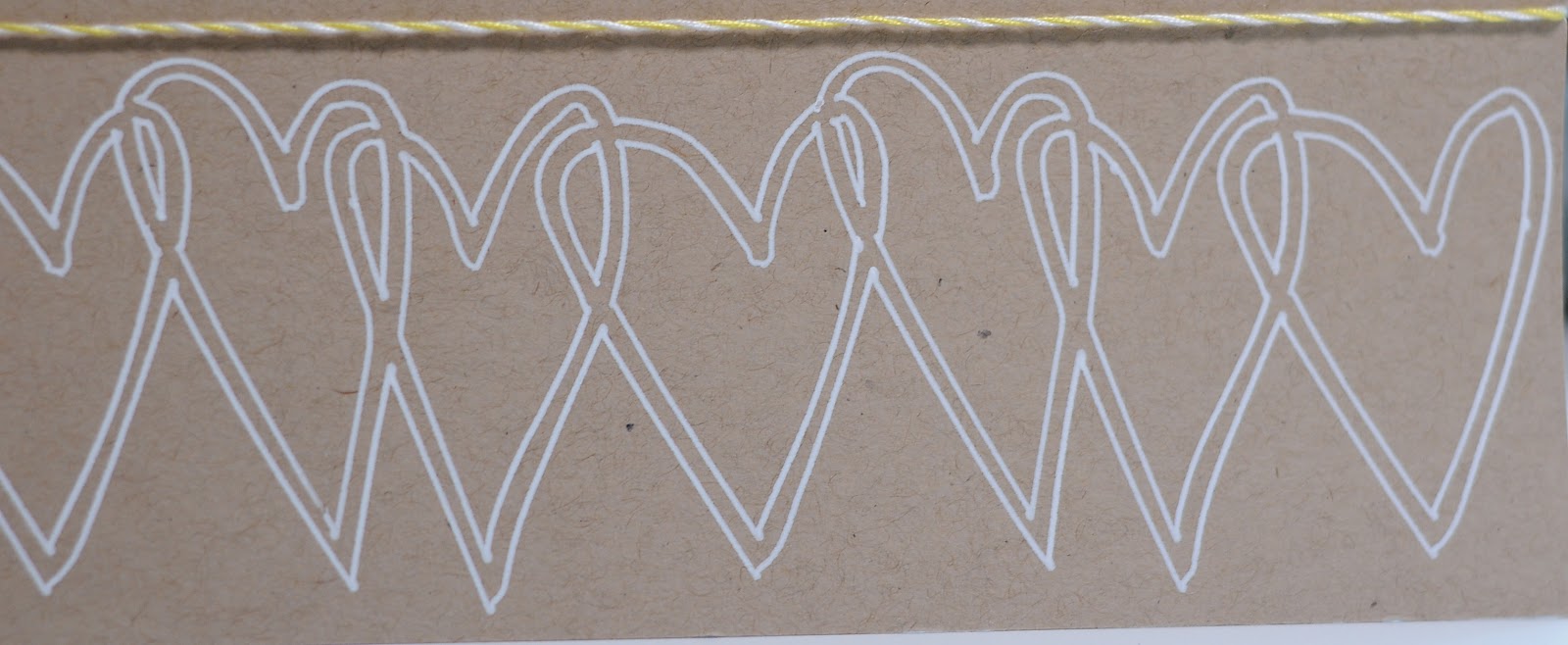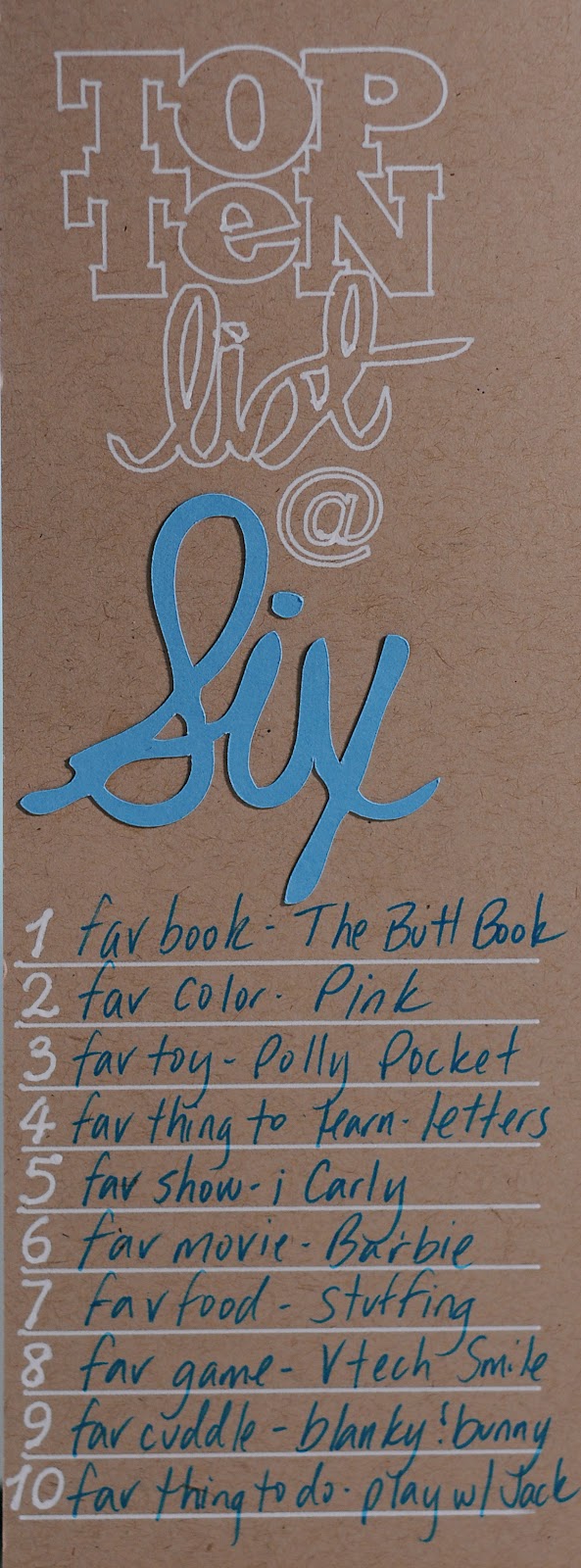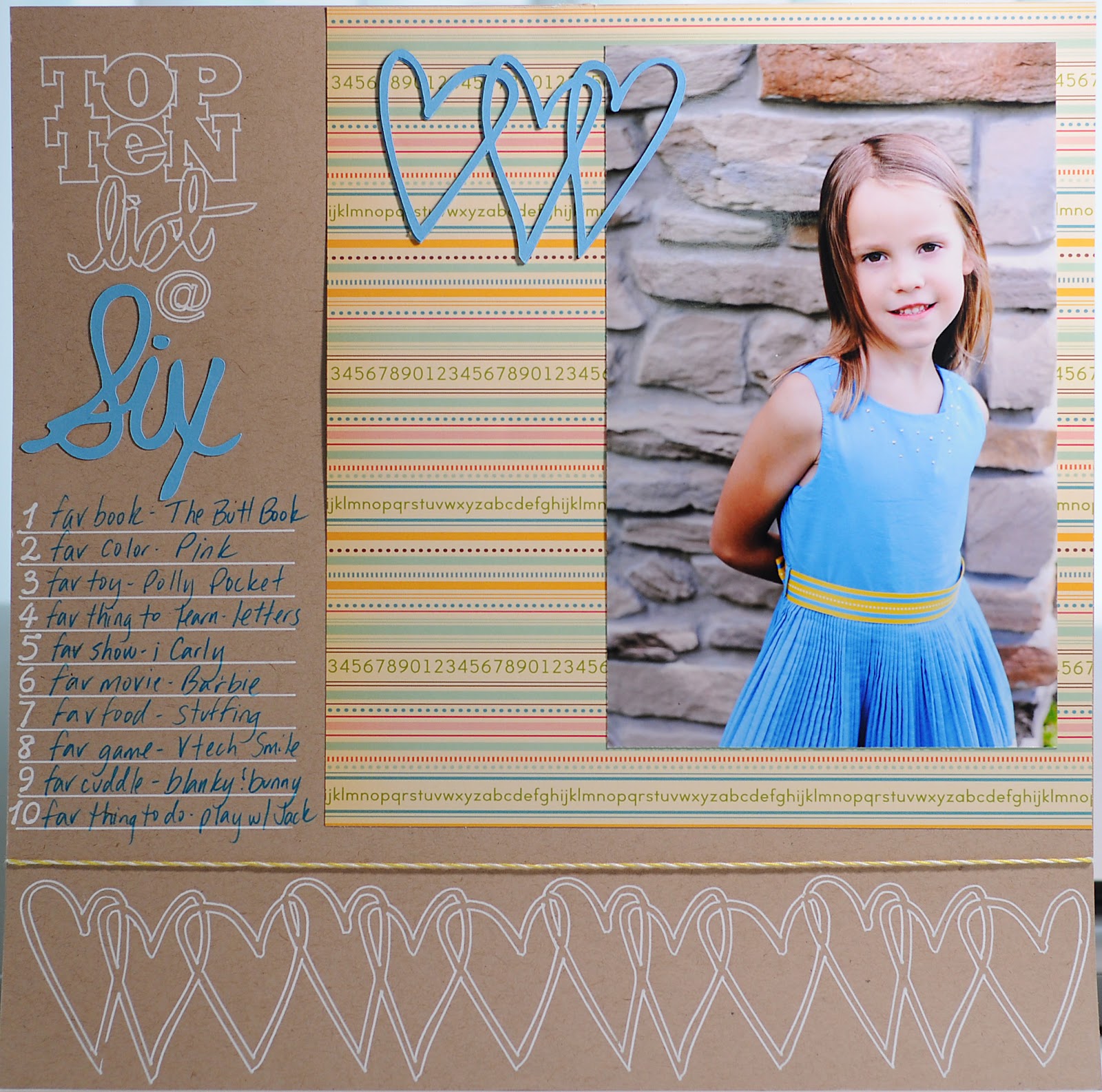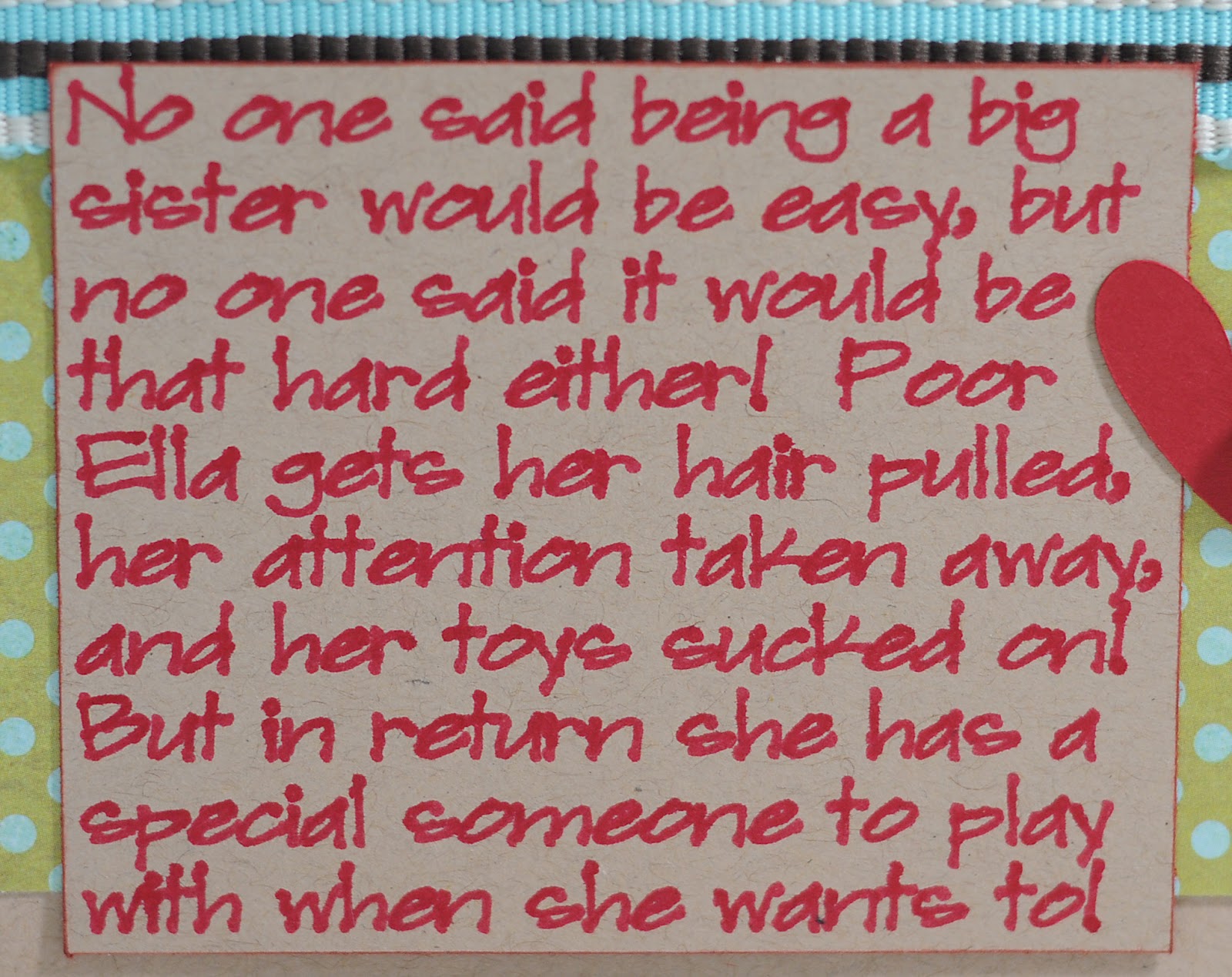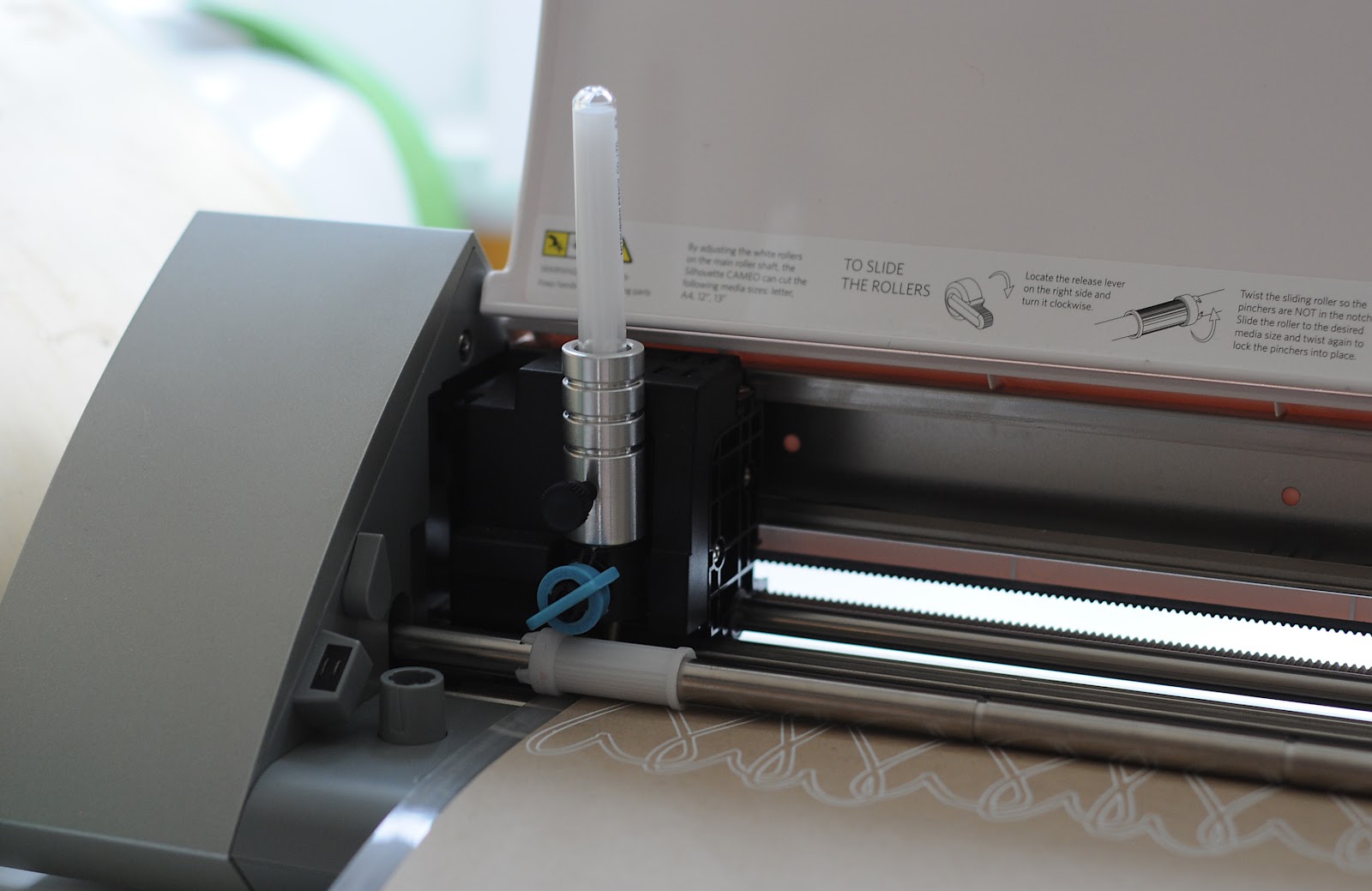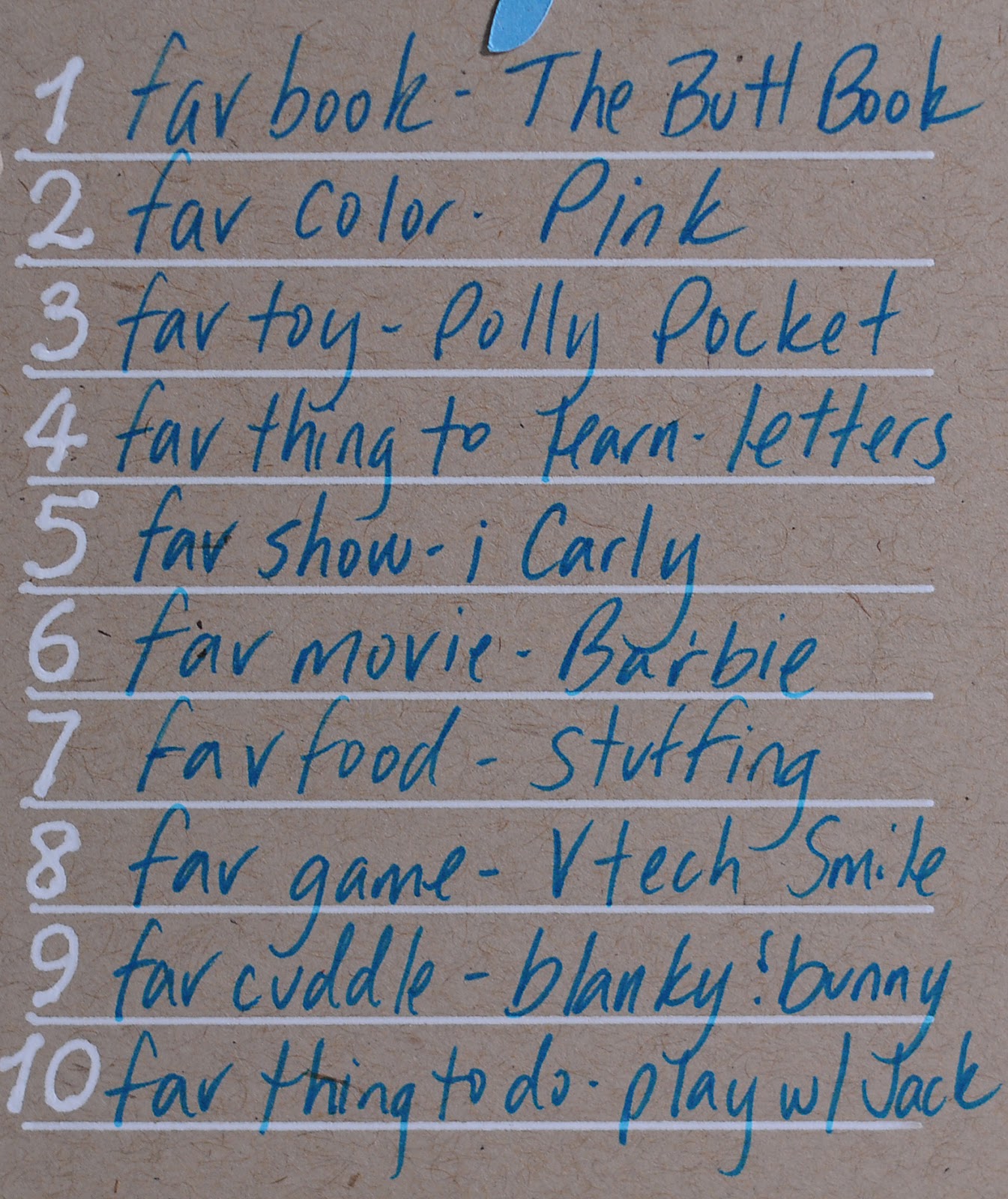
Father's Day card with Chomas Creations adjustable marker holder
So I had to see one of these new Lettering Delights sketches for myself with Silhouette Studio, so while I was getting the kids ready for bed, I let the Cameo do all the work.  I used the Sharpie Liquid Pencil.
Here are the Sharpie Liquid Pencils, which I found at Target (sorry they were open, I had to play hehe!)
Here is the Chomas Creations adjustable marker holder in the Cameo drawing the sketch.  I used Silhouette Studio with some of the new Lettering Delights thin fonts (this one is called LDT Teacher) to write Happy Father's Day at the bottom of the card.  Again Jin has a tutorial on using the new sketches on her blog... Under A Cherry Tree
I'm just amazed at what the Cameo can do!  Sooooo smooth!  I can't wait for Doug Larson to release more of these sketches to play with!  I inked around the edges of this card for a more rustic feel as well.  You can click on these pictures to get an even better idea on how amazing these details are!
Chomas Creations tools in the Cameo 3
I have already  mentioned that all of the Chomas Creations tools for the Silhouette will work in the Cameo 3, but in case you missed it...  All of the Chomas Creations tools will fit in the Silhouette!
I will admit I do not have the best printing and that is what I love about using the Chomas Creations adjustable pen holder with gel pens.  My fav gel pens are the Gelly Roll by Sakura.  They have over 100 different styles and colors, so you are sure to find something you like.  They also center in the adjustable pen holder.  I use journaling fonts, thin fonts or sketch fonts.  There are links on the left side of my blog for some thin font ideas.
I do like to buy these cards that are cut to size and already scored, and they come with matching envelopes.  I just add them to my mat and draw write on them.  I finished them off with some ribbon that my little helper helped me pick out!  I try to keep cards on hand at all times so I can grab them and go.  Some are super simple like these!
On the farm with the Chomas Creations adjustable marker holder
Look at these cute farm animals from the Silhouette Studo store that I drew right on my background paper with the Chomas Creations adjustable marker holder and the Zig Ball .5mm pens.  Most gel pens are .7mm, so for sketching the thinner the tip, the better!
The tractor was a Studio file that I used the Sketch feature on in Designer's Edition to make it resemble the animals more.
Here is the Chomas Creations adjustable marker holder with the Zig pen in the Cameo machine.  I used a speed of 8 and a thickness of 9 to draw everything on the background page.
I also did my journaling right on my 12x12 background paper.  The font is Lettering Delights Sporty.
The barn is a Studio download but I welded the title in Studio and cut them both out and layered them.
Here is my son on his field trip as well as some ribbon to pop on the page.
Cherish layout with Chomas Creations adjustable pen holder
I have a confession to make.  I started this page over 5 years ago.  It has sat and sat with only paper and pictures on it, just waiting to get finished.  I guess I got stuck on a title, and some finishing ideas.  I didn't know if I was happy with the set up.  Today I decided to get it done!  I found this very fitting title in the Studio downloads.
And another confession.  I'm addicted to cool pens and markers.  I have to look every time I am at a store.  These Sharpie pens were at Target in the best colors!  And notice the no bleed sign on the front!  Perfect for cardstock, and fine tip!  And look, they even fit in the Chomas Creations adjustable pen holders, and this means they are centered when you use them!
So I used the Sharpie pens in the Chomas Creations adjustable pen holder for the Cameo to do the journaling on this page!  The font is from a Lettering Delights font called LD Typewriter.  It is a thin font, and look how nice it looks for details!  I did this in Studio.  When you buy the Lettering Delights thin fonts, you can download the zip file which includes the TTF version of the fonts that you install on your computer and can use in Studio!
Thank you card with Chomas Creations adjustable marker holder
I have to work on some end of year thank you cards for the kids' teachers this year, and  here is one I came up with!  I was thinking the white gel pen would look like chalk on the chalk board (although they use smart boards at my kids' school!).  So I used the Chomas Creations adjustable marker holder for the Cameo with the Signo white gel pen to draw the Lettering Delights thin font called Teacher in MTC.  You can get the share for this file on here... abc thank you